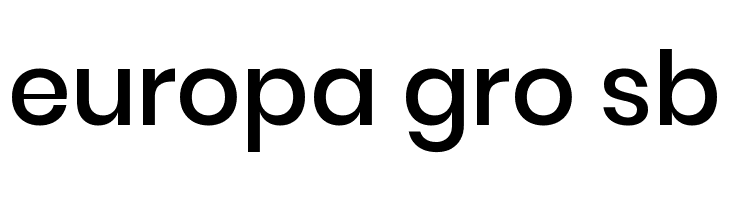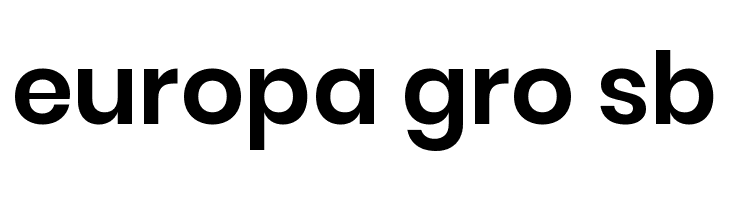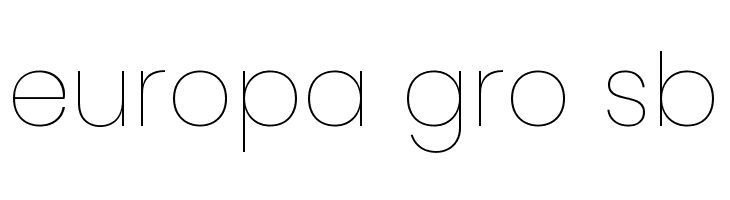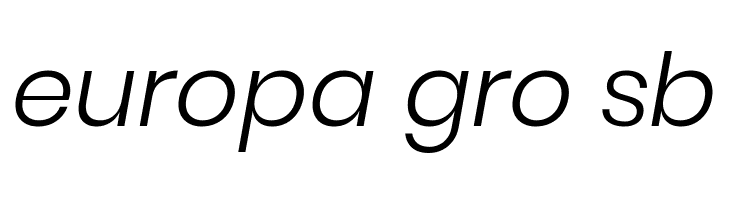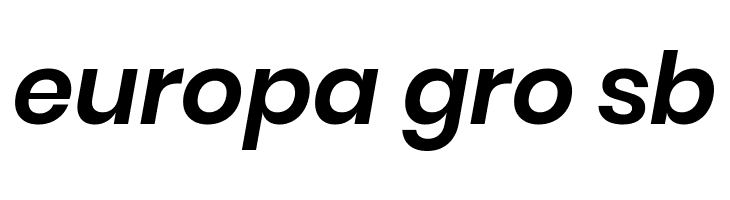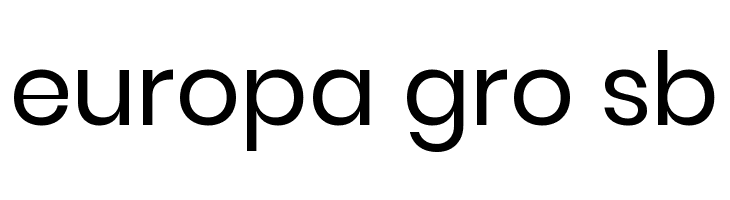
A clean, modern, geometric sans-serif font with a light, italicized style.
A modern, geometric sans-serif font with a clean and balanced design.
A modern, italic typeface with geometric shapes and medium weight.
A modern, geometric sans-serif font with a clean and balanced design.
A modern, italicized typeface with clean lines and balanced proportions.
A modern, thin sans-serif font with geometric shapes and balanced spacing.
A sleek, modern, and thin italic font with a minimalist design.